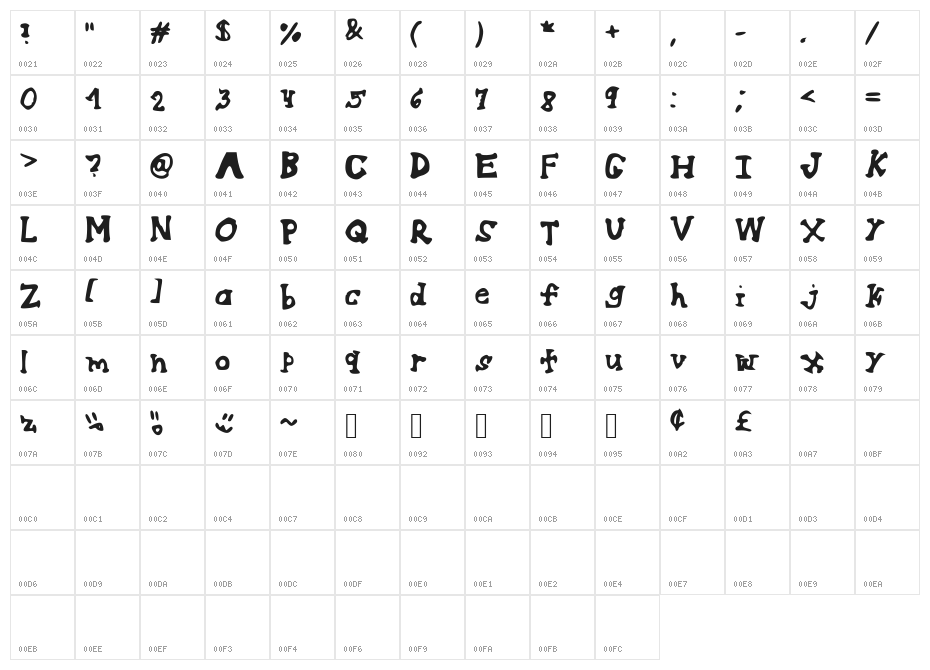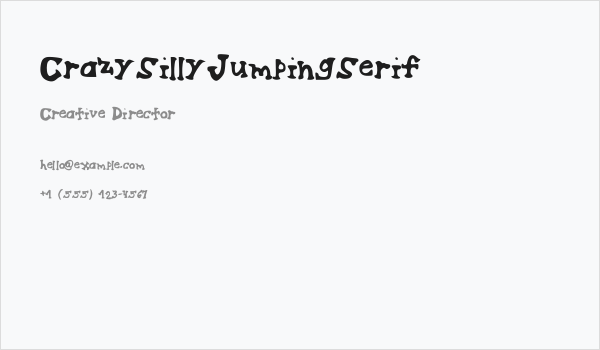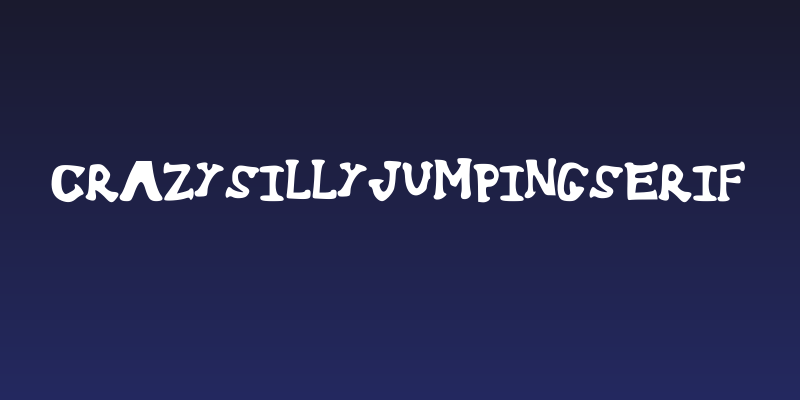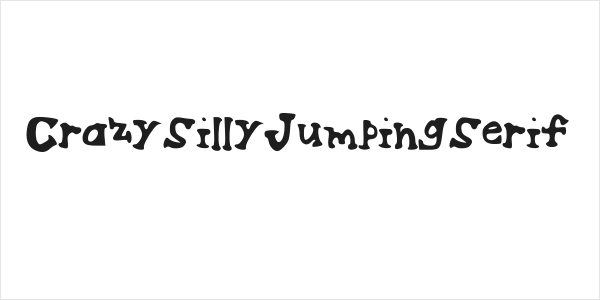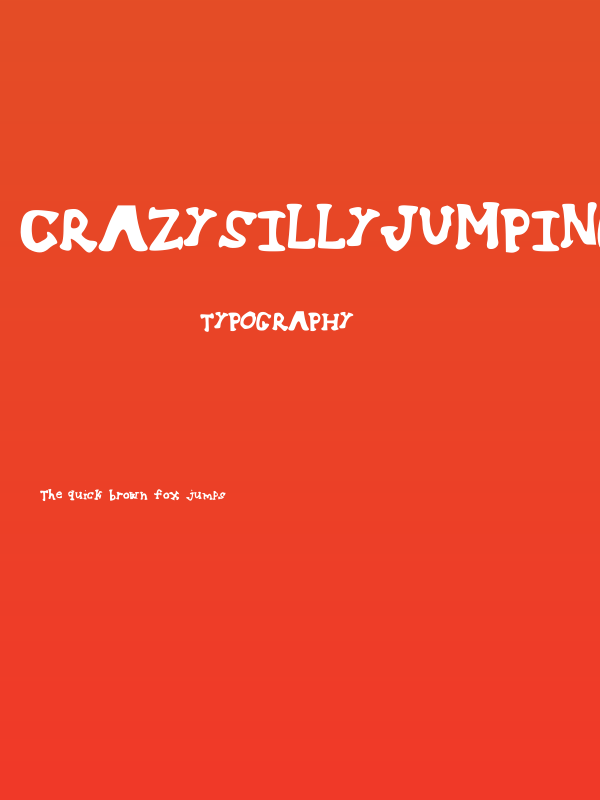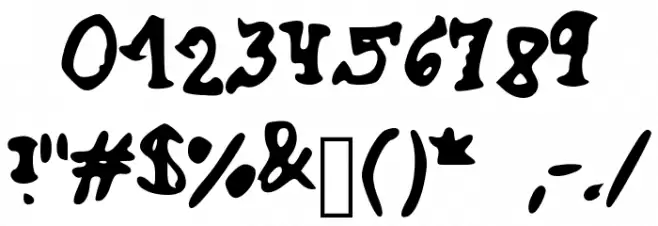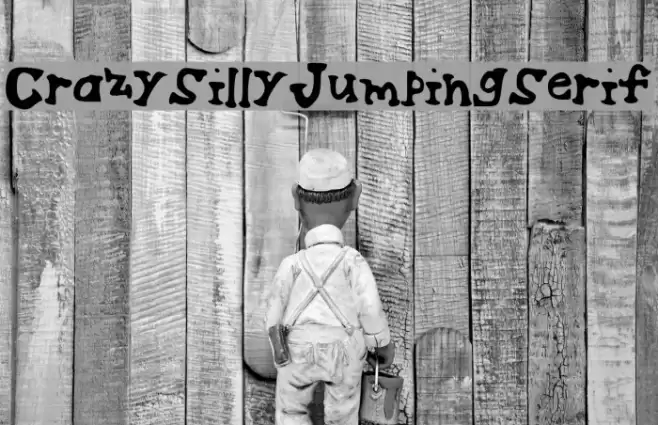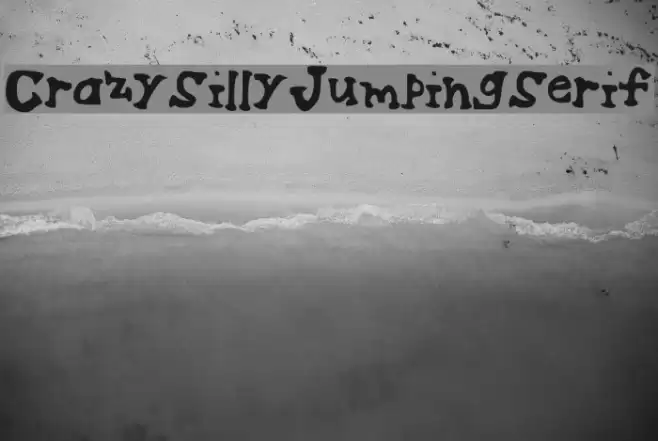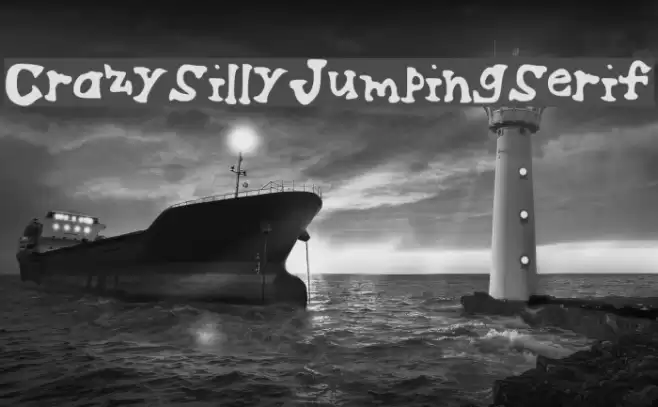
CrazySillyJumpingSerif Font
This font features a playful and whimsical design, characterized by its exaggerated, irregular shapes and bold strokes. The letters appear to be dancing or jumping, giving a sense of movement and energy. The uppercase and lowercase letters maintain a consistent style, with rounded edges and varying stroke widths that add to the font's quirky personality. Numbers and special characters follow the same playful theme, making them suitable for creative and informal applications. The overall appearance is bold and eye-catching, perfect for projects that require a fun and lively touch.